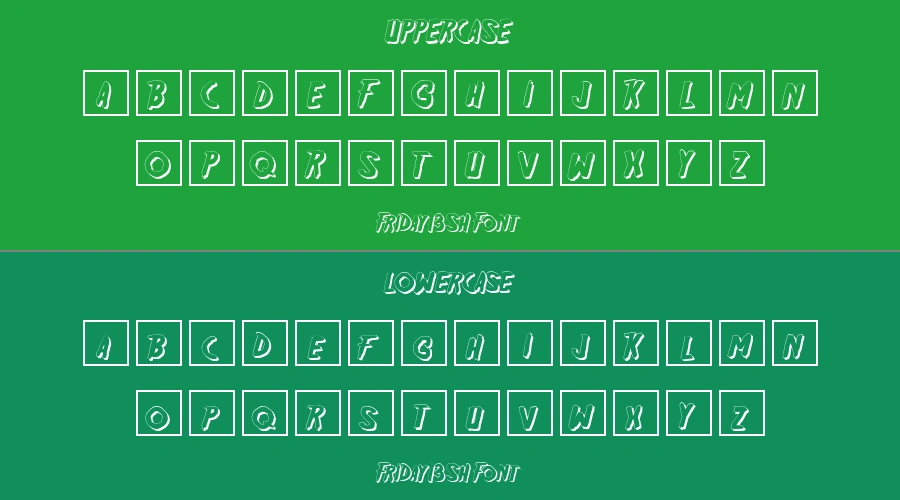
About Friday13SH Font
Designed with precision, Friday13SH Font merges natural flow with visual rhythm in every character. This versatility makes it particularly effective for scientific papers, where reliability and aesthetic excellence directly impact communication quality. Each letterform demonstrates meticulous craftsmanship.
Technical excellence shines through elements like balanced proportions and terminal forms, enhancing typographic versatility. In data tables settings, Friday13SH Font proves its worth through superior print fidelity. The thoughtful execution of apex design and emotional resonance ensures professional results.